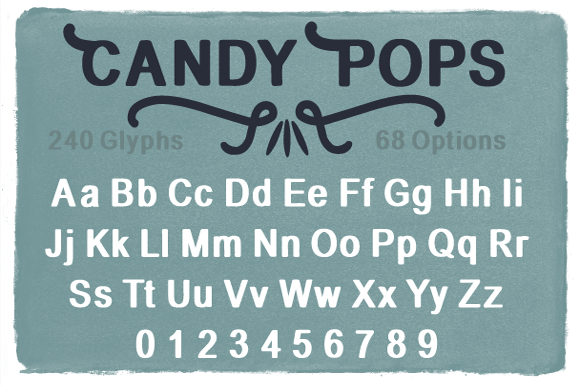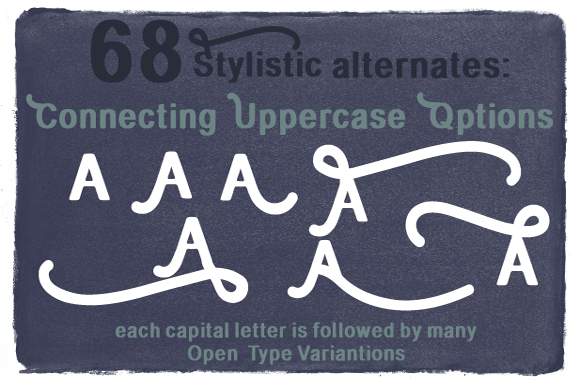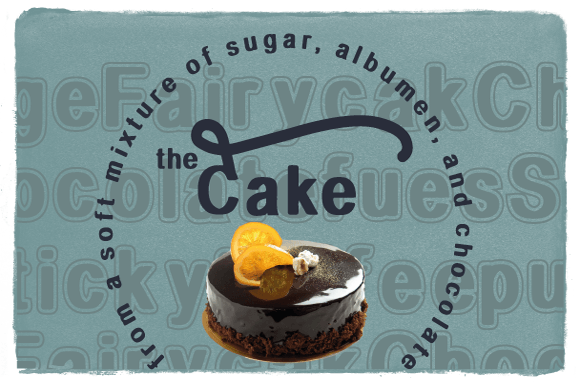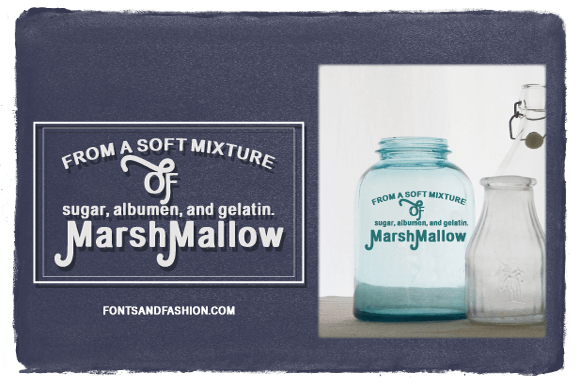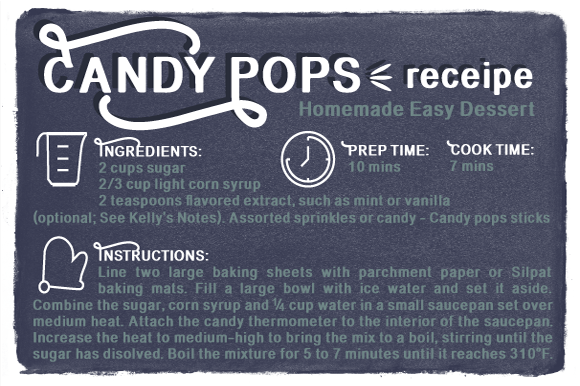
Candy Pops Font: The Sweetest Addition to Your Design Collection
Are you on the hunt for a font that’s as sweet as it is versatile? Look no further than Candy Pops, a casual and neat display font that’s perfect for adding a touch of fun and friendliness to your designs. With its approachable vibe, Candy Pops is suitable for a wide range of applications, from stickers and headlines to apparel and posters.
The Characteristics of Candy Pops Font
Candy Pops is a display font that’s all about having fun. Its clean and neat lines make it easy to read, while its casual feel gives it a laid-back, approachable vibe. The font’s friendly nature makes it perfect for designs that need to appeal to a wide audience, from kids to adults. Whether you’re creating a playful sticker or a bold headline, Candy Pops is the perfect choice.
What Makes Candy Pops Font So Versatile?
One of the things that sets Candy Pops apart from other fonts is its incredible versatility. This font can be used for a wide range of applications, including:
- Stickers: Add a fun and playful touch to your stickers with Candy Pops. Its bold lines and bright personality make it perfect for creating eye-catching stickers that kids and adults will love.
- Headlines: Make a statement with Candy Pops. Its clean and neat lines make it easy to read, even at large sizes, making it perfect for headlines that need to pack a punch.
- Apparel: Add a touch of whimsy to your apparel designs with Candy Pops. Its friendly vibe makes it perfect for creating fun and playful designs that will appeal to a wide audience.
- Posters: Create bold and eye-catching posters with Candy Pops. Its versatility and range make it perfect for creating posters that need to communicate a message in a fun and engaging way.
Why Designers and Crafters Love Candy Pops Font
So why do designers and crafters love Candy Pops font? Here are just a few reasons:
- Easy to Read: Despite its playful nature, Candy Pops is incredibly easy to read. Its clean lines and simple shapes make it perfect for designs that need to communicate a message quickly and effectively.
- Highly Versatile: As mentioned earlier, Candy Pops is incredibly versatile. It can be used for a wide range of applications, from stickers to posters.
- Fun and Engaging: Candy Pops is a font that’s all about having fun. Its playful nature makes it perfect for designs that need to engage and entertain.
Tips for Using Candy Pops Font
Here are a few tips for getting the most out of Candy Pops font:
- Experiment with Colors: Candy Pops is a font that really comes alive with color. Experiment with different colors and combinations to find the perfect look for your design.
- Play with Size: Candy Pops is a font that works well at a wide range of sizes. Experiment with different sizes to find the perfect fit for your design.
- Pair it with Other Fonts: Candy Pops is a font that pairs well with other fonts. Experiment with different pairings to find the perfect combination for your design.
Candy Pops font is a sweet and versatile addition to any design collection. Its friendly vibe and clean lines make it perfect for a wide range of applications, from stickers to posters. Whether you’re a designer or a crafter, Candy Pops is a font that’s sure to bring a smile to your face and a touch of fun to your designs.